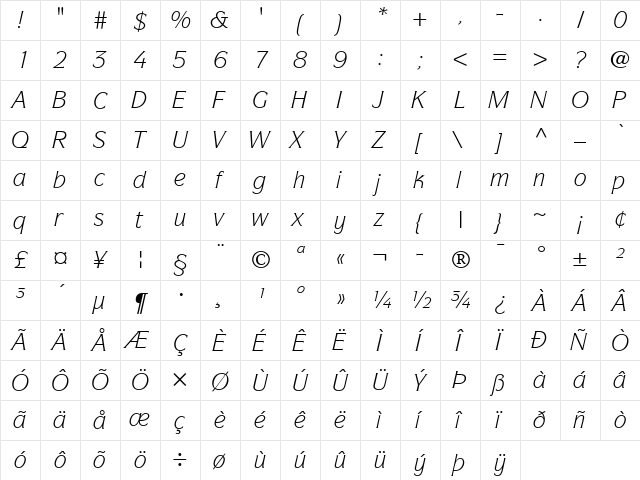
Design Context for Symbol LT Book Typeface
Symbol LT Book offers clean, dependable letterforms without strong stylistic allegiance, making it a practical choice for designers who need flexibility. The slanted form adds forward momentum and visual energy. The delicate stroke weight brings airiness and refinement to layouts.
Pro Tip: Try Symbol LT Book for annotation and caption copy alongside an upright companion — the contrast in angle creates a dynamic but ordered typographic system.